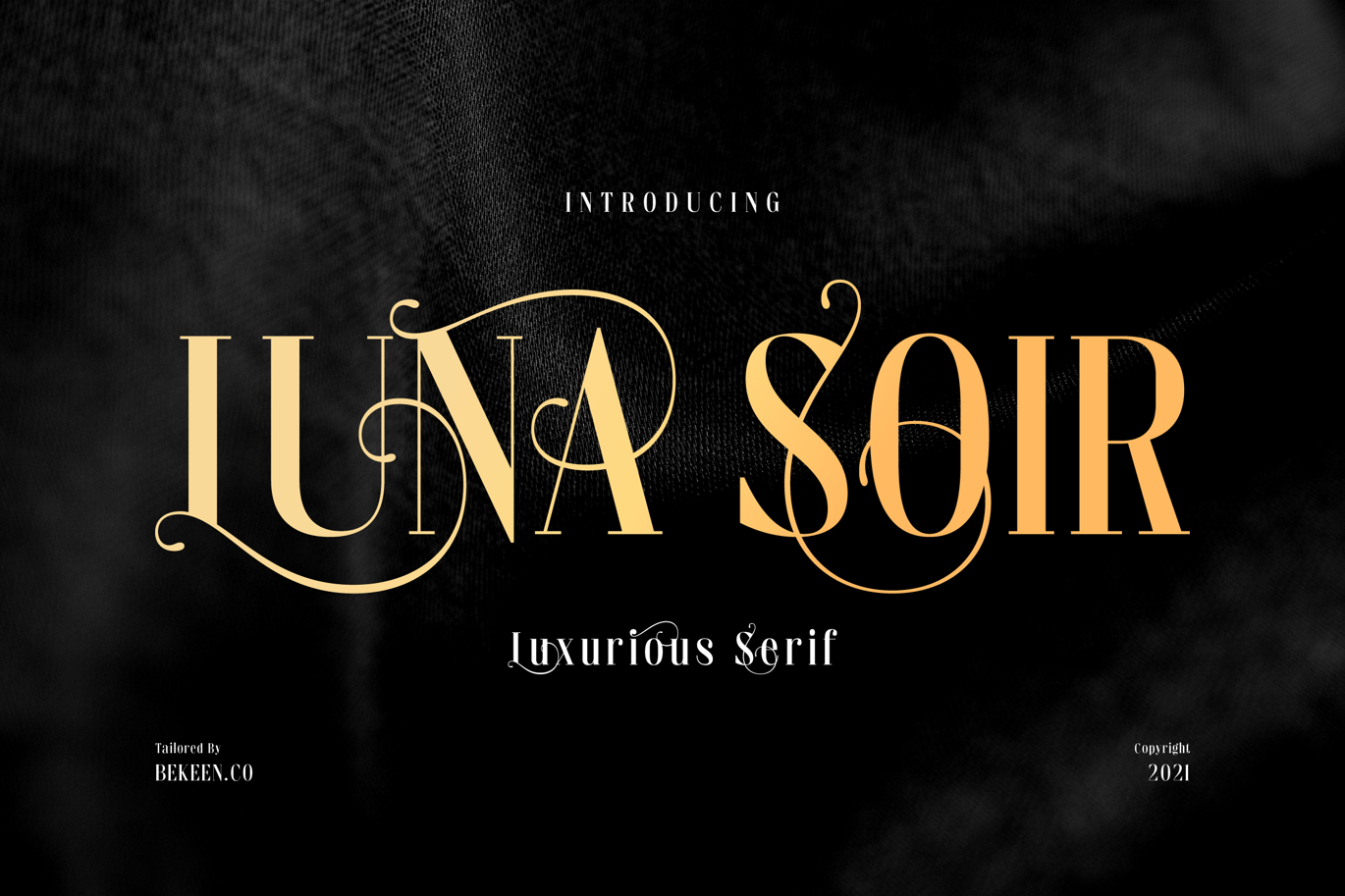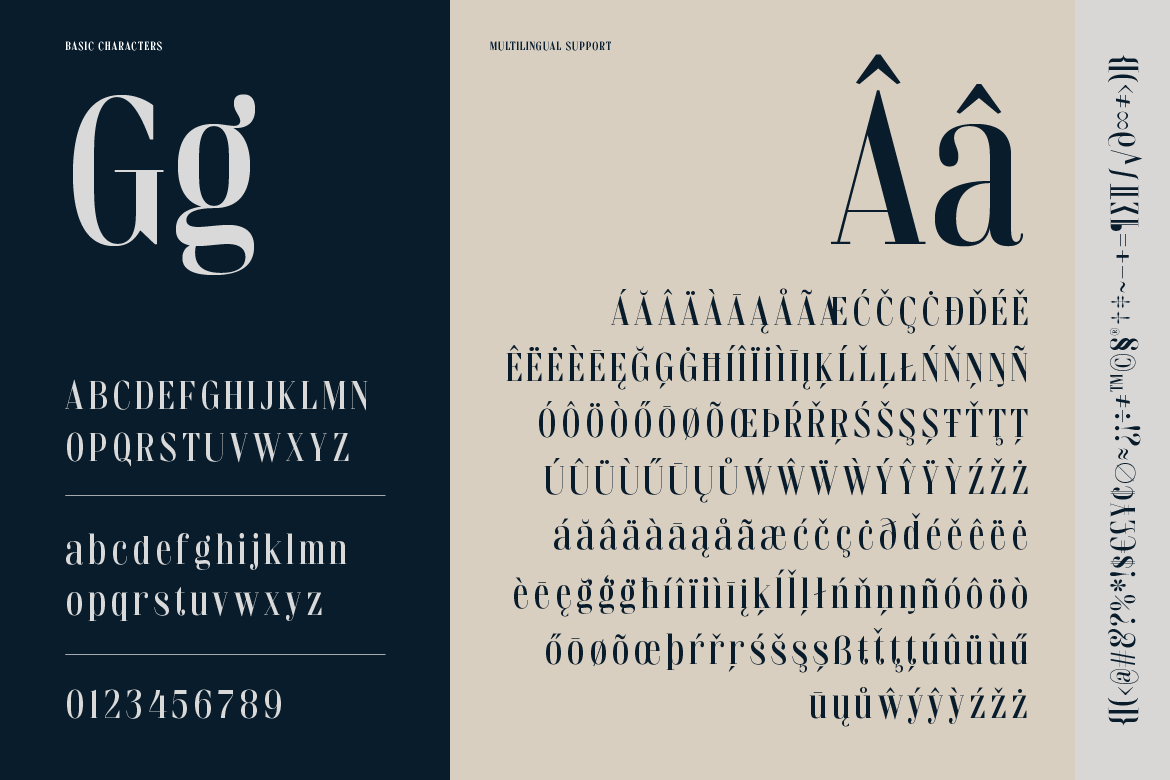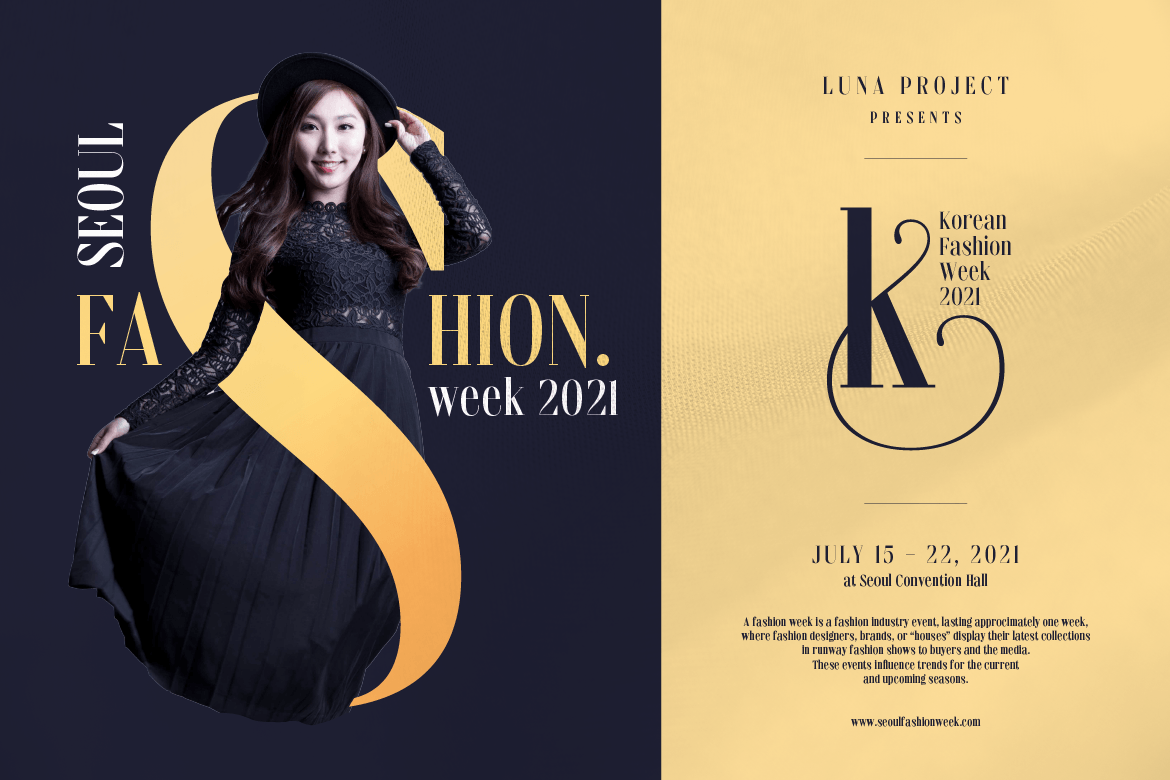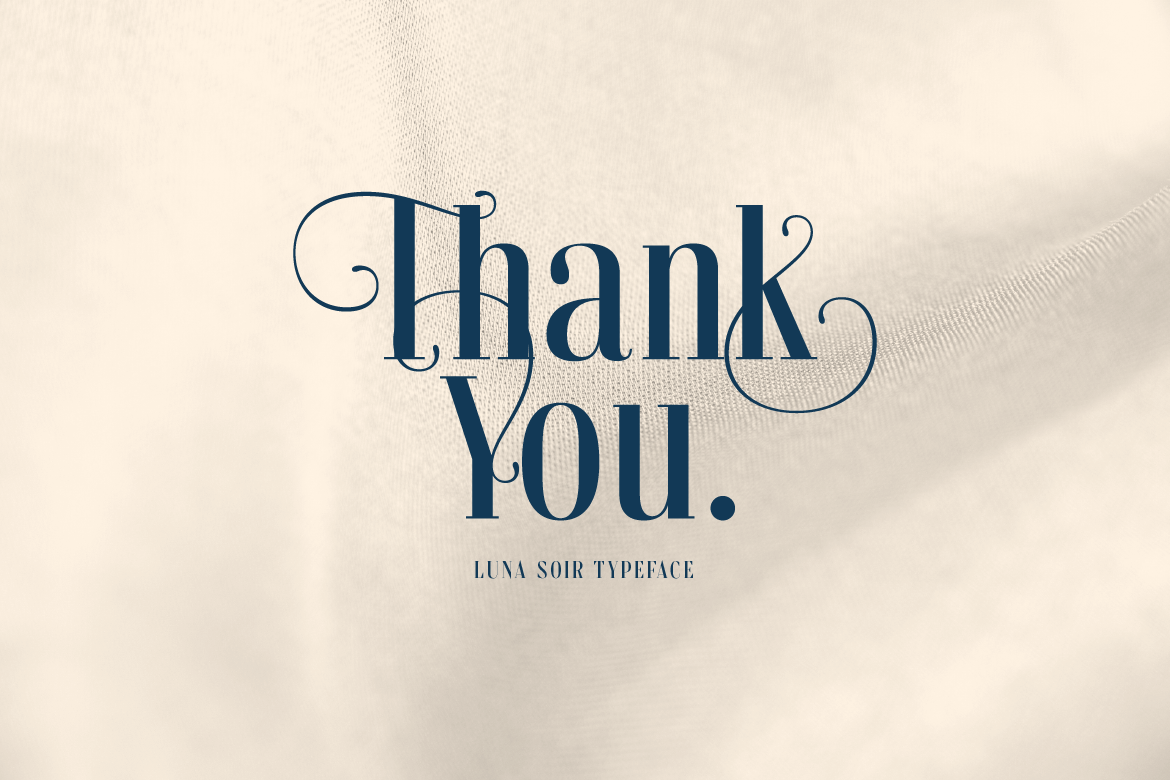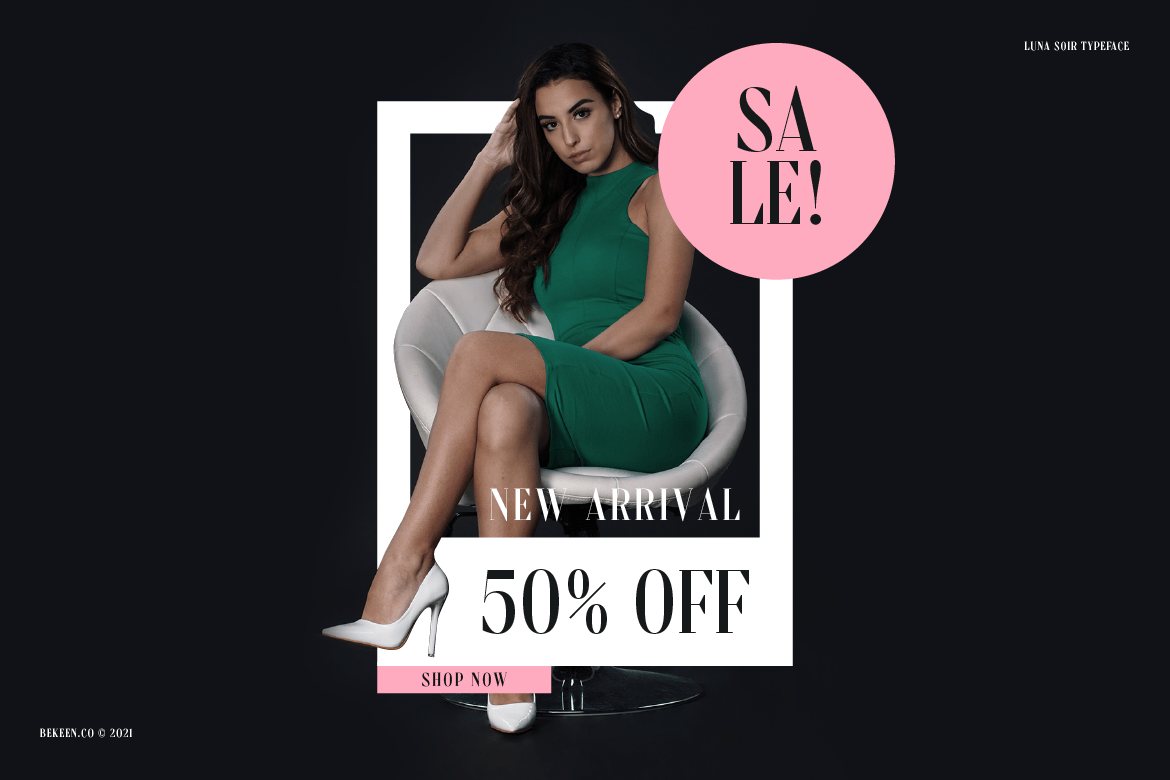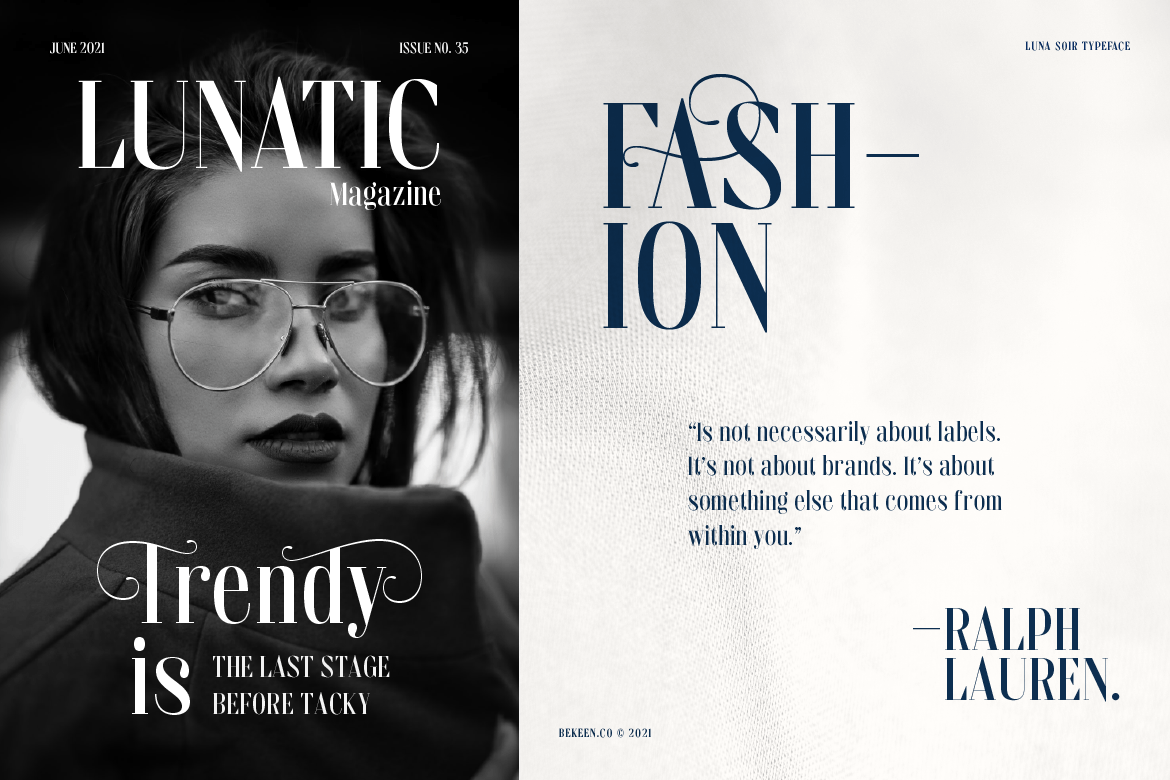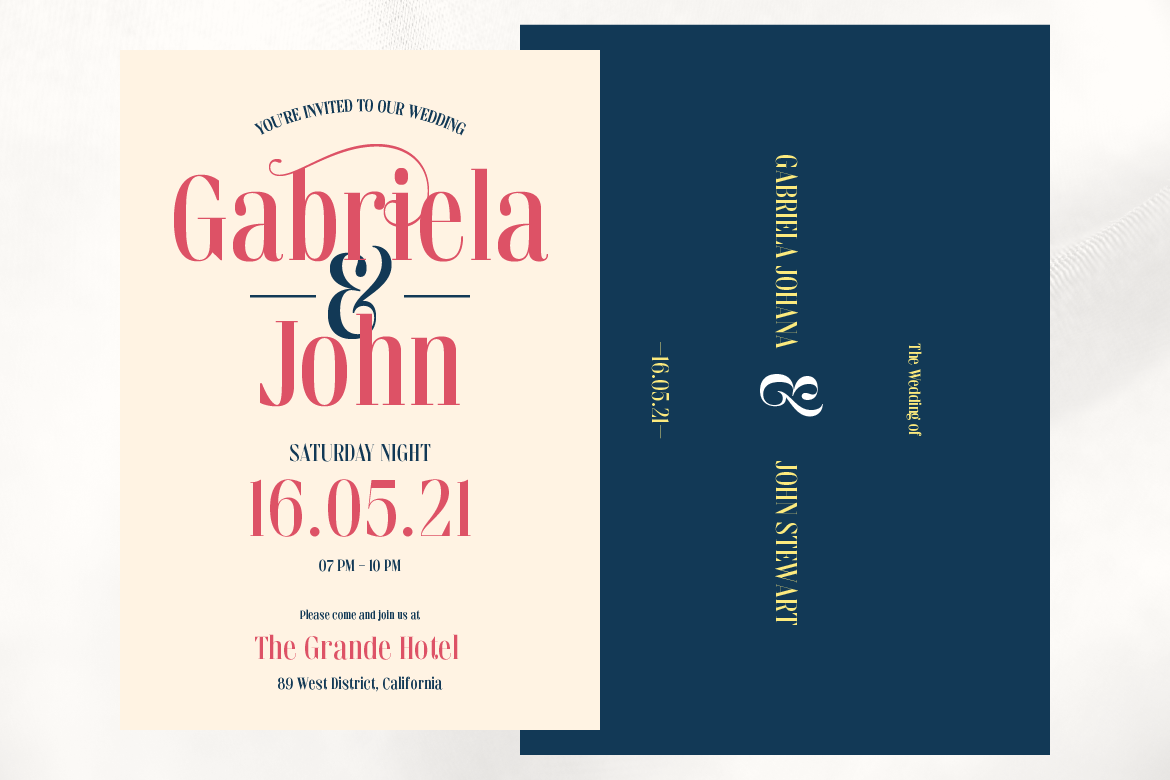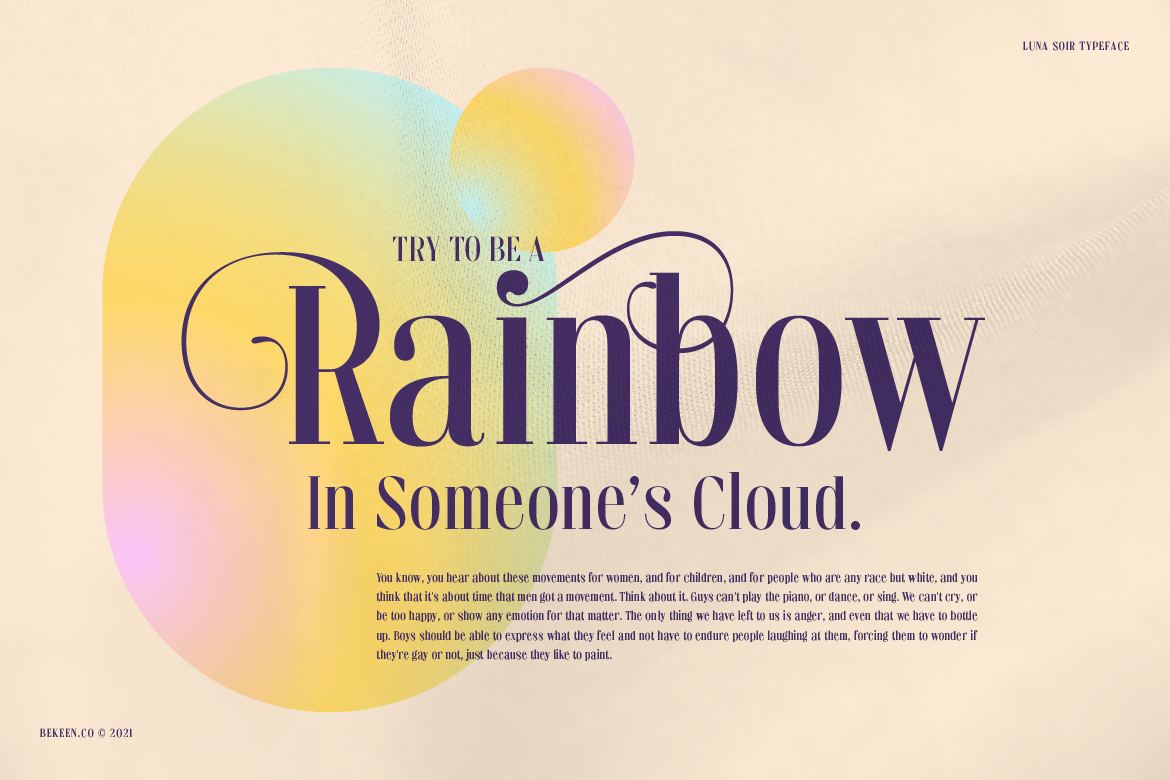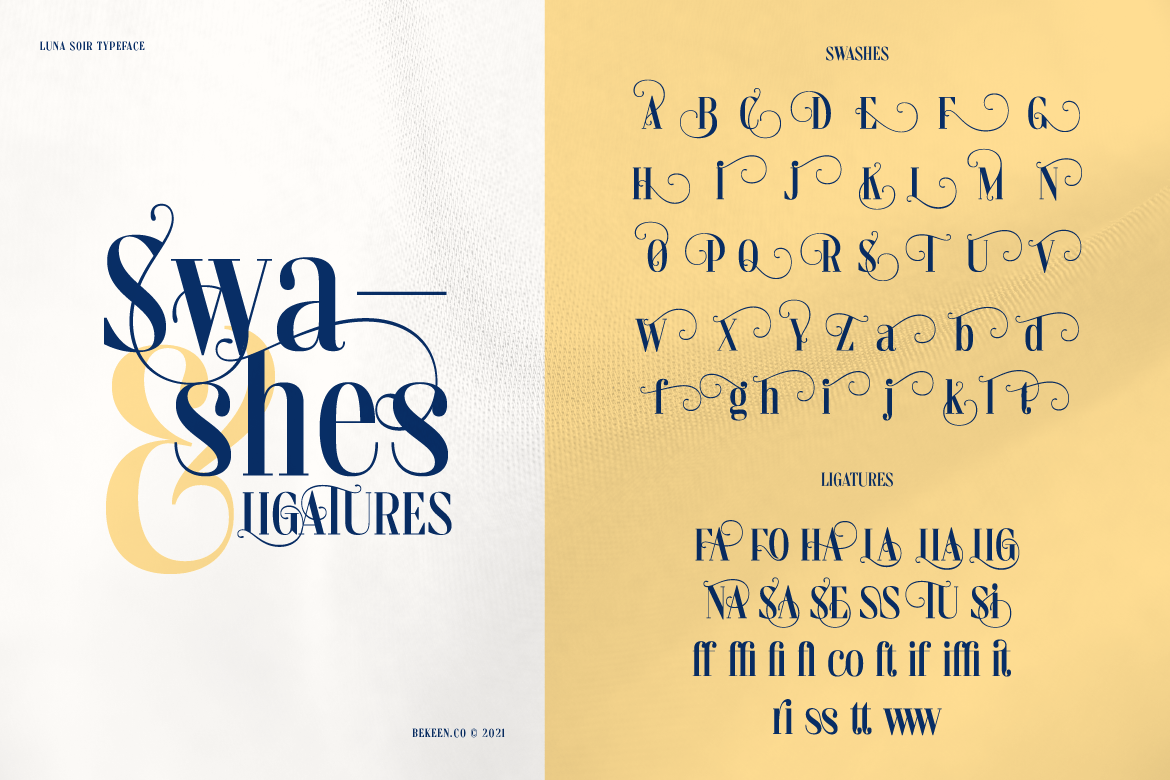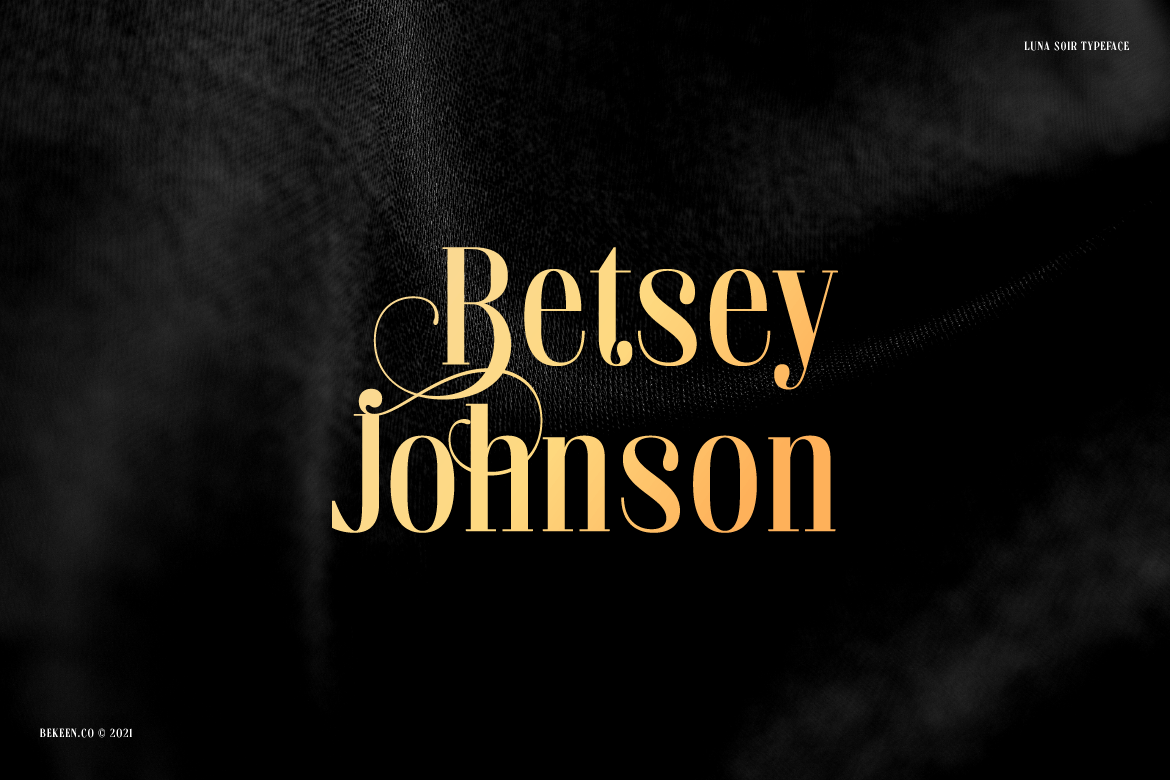
Elegant Fashion Font
**LUNA SOIR **is a new serif typeface inspired by luxury fashion, thinking about a glamorous nightdress. LUNA SOIR has beautiful swashes and ligatures. It’s a sexy look for fashion, beauty, or any design project that needs elegant or luxury touch.
- Lowercase and Uppercase
- Swashes and Ligatures